Choosing the best bold fonts can dramatically improve the impact of your digital design. Bold typography is not just about thickness; it’s about visibility, hierarchy, and personality. In websites, apps, social media graphics, and branding projects, bold fonts help capture attention instantly and guide users through content.
In this guide, we’ll explore five of the best bold fonts for digital design and explain how serif, sans serif, handwritten, display, and retro fonts can elevate your creative work.
Why Bold Fonts Matter in Digital Design
Digital environments are crowded. Users scroll quickly and scan content rather than reading every word. Bold fonts help designers:
- Create a strong visual hierarchy
- Emphasize key messages
- Improve readability
- Strengthen brand personality
5 Best Bold Fonts for Digital Design
Below are five bold font categories that perform exceptionally well in digital layouts.
1. Bold Serif Fonts for Authority and Elegance
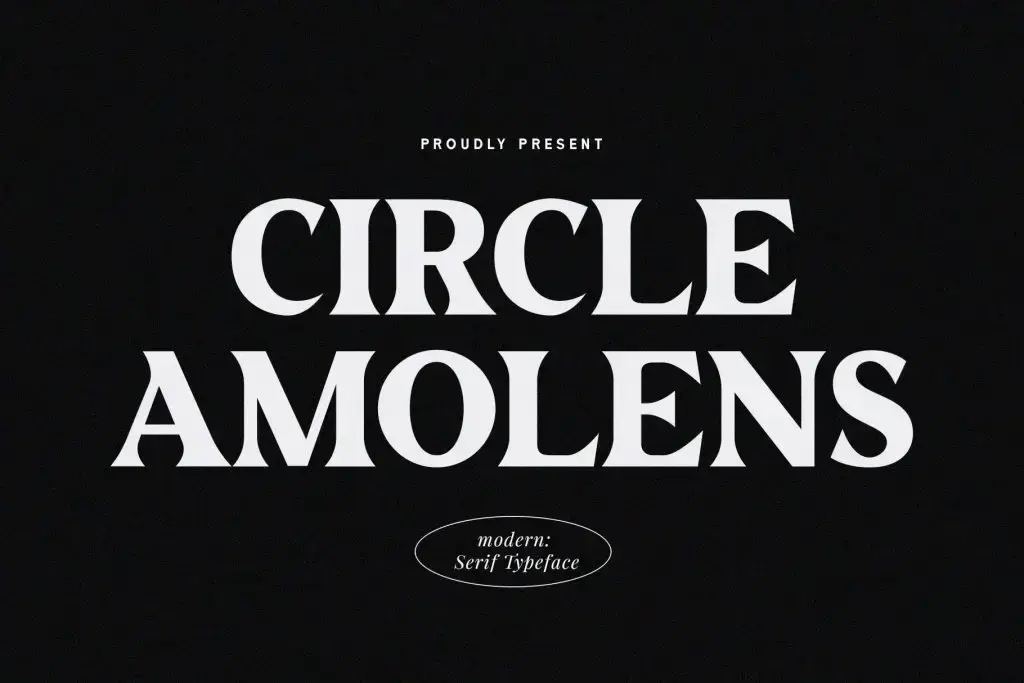
Bold serif fonts combine strong weight with classic letterforms. They feel refined, confident, and structured.
Why Bold Serif Works
Bold serif fonts are ideal for:
- Editorial websites
- Luxury branding
- Professional publications
- Headlines that need authority
The thick strokes combined with serifs create visual balance while maintaining readability.
Best Use Cases in Digital Design
Use bold serif fonts for:
- Hero section headlines
- Website banners
- Premium landing pages
They add sophistication without losing clarity.
2. Bold Sans Serif Fonts for Modern Impact
Why Bold Sans Serif Dominates
These fonts feel:
- Clean
- Minimal
- Strong
- Contemporary
Their simple structure ensures clarity even on small screens.
Where to Use Bold Sans Serif
Bold sans serif fonts are perfect for:
- Tech startups
- SaaS platforms
- Mobile apps
- Social media graphics
They deliver high impact while staying readable across devices.
3. Handwritten Bold Fonts for Personality
Why Handwritten Bold Works
These fonts communicate:
- Authenticity
- Creativity
- Personal touch
- Artistic expression
The thicker strokes enhance visibility while maintaining the organic feel of handwriting.
Ideal Applications
Handwritten bold fonts are excellent for:
- Creative portfolios
- Café and lifestyle brands
- Social media quotes
- Personal branding
However, avoid using them for long paragraphs, as readability may decrease.
4. Display Bold Fonts for Maximum Attention
What Makes Display Bold Unique
These fonts often feature:
- Dramatic letterforms
- Unique shapes
- Decorative elements
- Strong visual presence
They are ideal for grabbing immediate attention.
Best Use Cases
Use display bold fonts for:
- Posters
- Promotional banners
- Event announcements
- Product launches
Because of their decorative nature, pair them with simpler body text.
5. Retro Bold Fonts for Digital Design
Why Retro Bold Is Trending
Retro bold fonts are popular because they:
- Feel unique and distinctive
- Add personality
- Create an emotional connection
Ideal Applications
- Vintage-inspired branding
- Creative agencies
- Music and entertainment websites
Retro bold fonts combine thick strokes with playful shapes, making them visually impactful in digital contexts.
How to Choose the Best Bold Fonts for Digital Design
Selecting the right bold font depends on your brand identity and design goals.
Consider Your Brand Personality
Ask yourself:
- Is your brand formal or playful?
- Do you want luxury or modern minimalism?
- Is your audience corporate or creative?
Bold serif fonts work for authority, while funky bolds suit experimental brands.
Maintain Visual Hierarchy
Use bold fonts strategically:
- Primary headline → bold
- Subheadline → medium weight
- Body text → regular weight
Avoid bolding everything, as it weakens hierarchy.
Pair Bold Fonts Carefully
Effective pairing enhances clarity. For example:
- Bold serif + light sans serif
- Bold display + neutral body font
- Funky bold + clean minimalist text
Final Thoughts on Bold Fonts for Digital Design
The best bold fonts for digital design balance strength, clarity, and personality. Whether you choose bold serif for authority, bold sans serif for modern simplicity, handwritten bold for warmth, display bold for dramatic impact, or funky bold for playful branding, the key is intentional use.
Bold typography should enhance hierarchy and communication, not overpower the design. When applied thoughtfully, bold fonts become powerful tools that help digital designs stand out and connect with audiences.